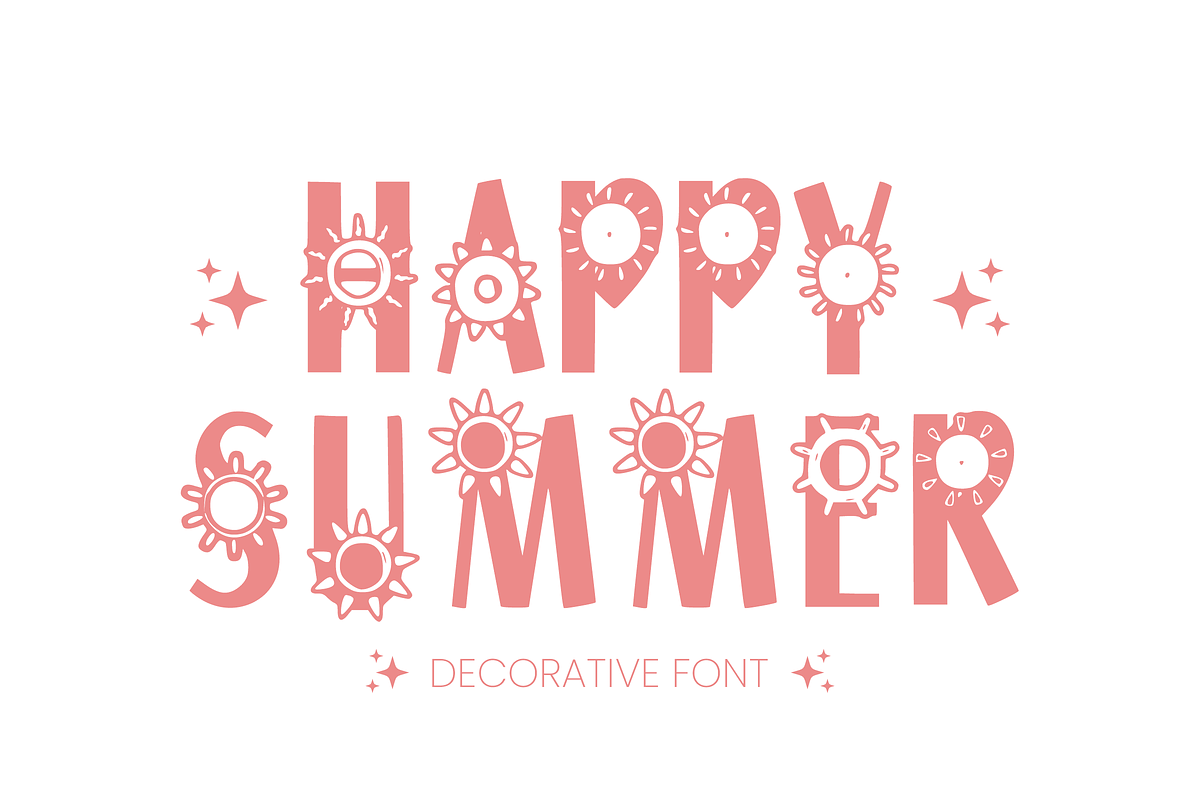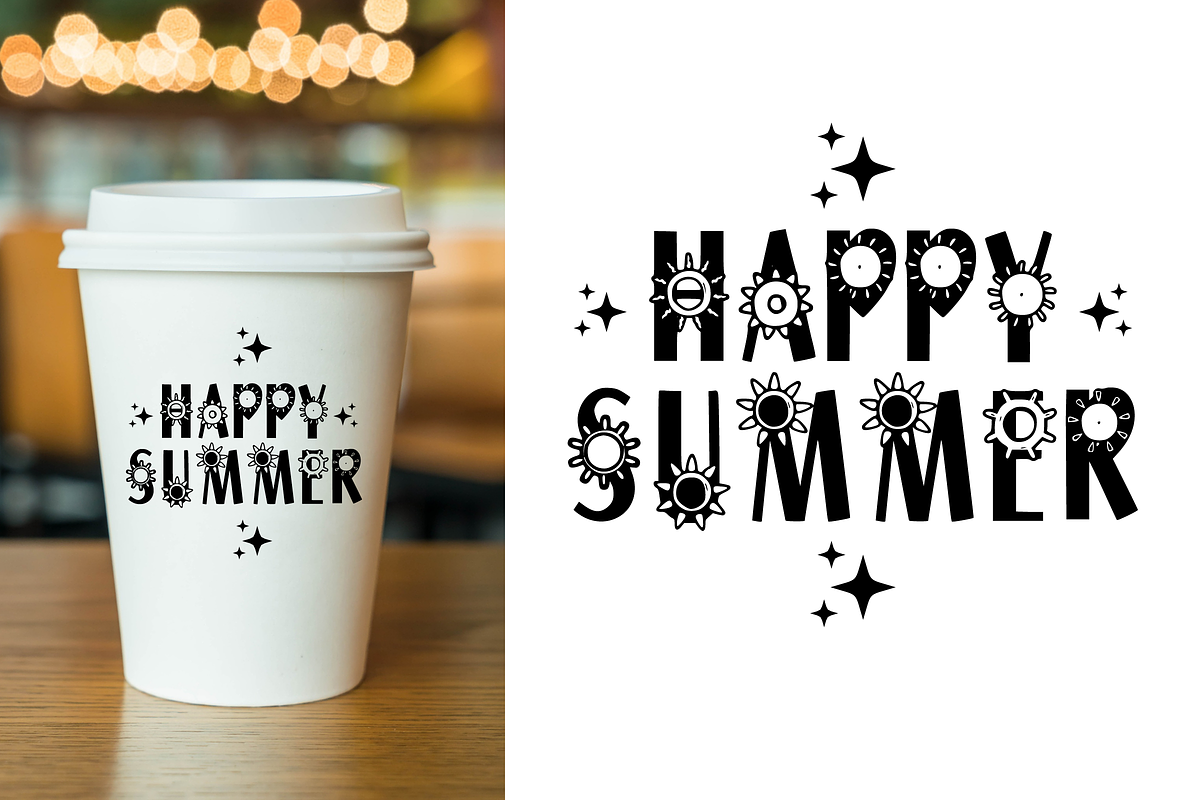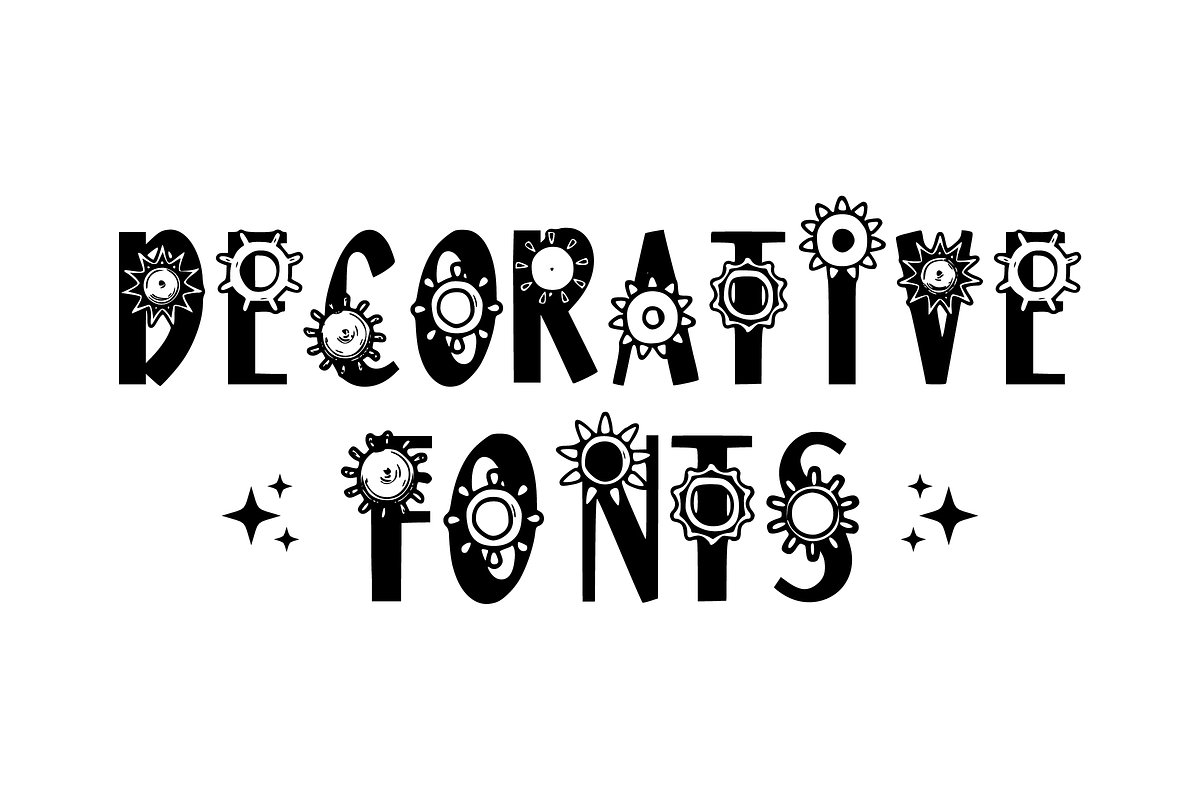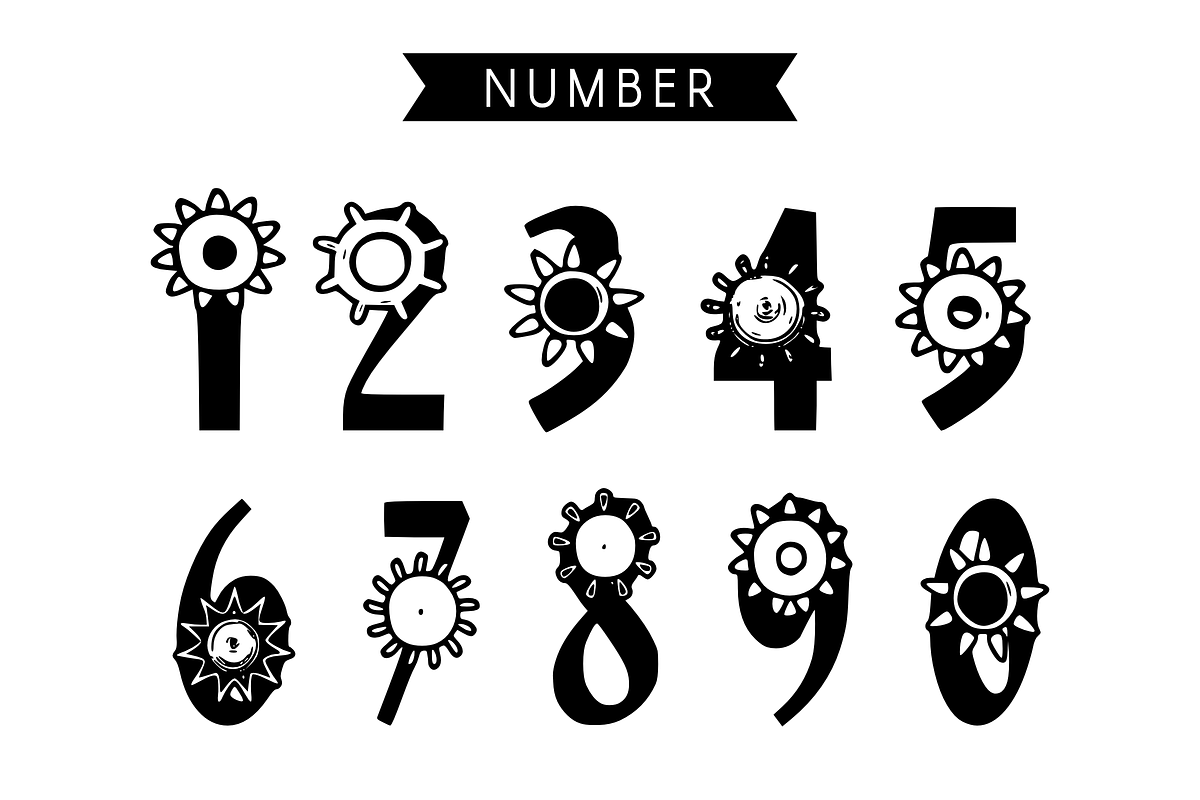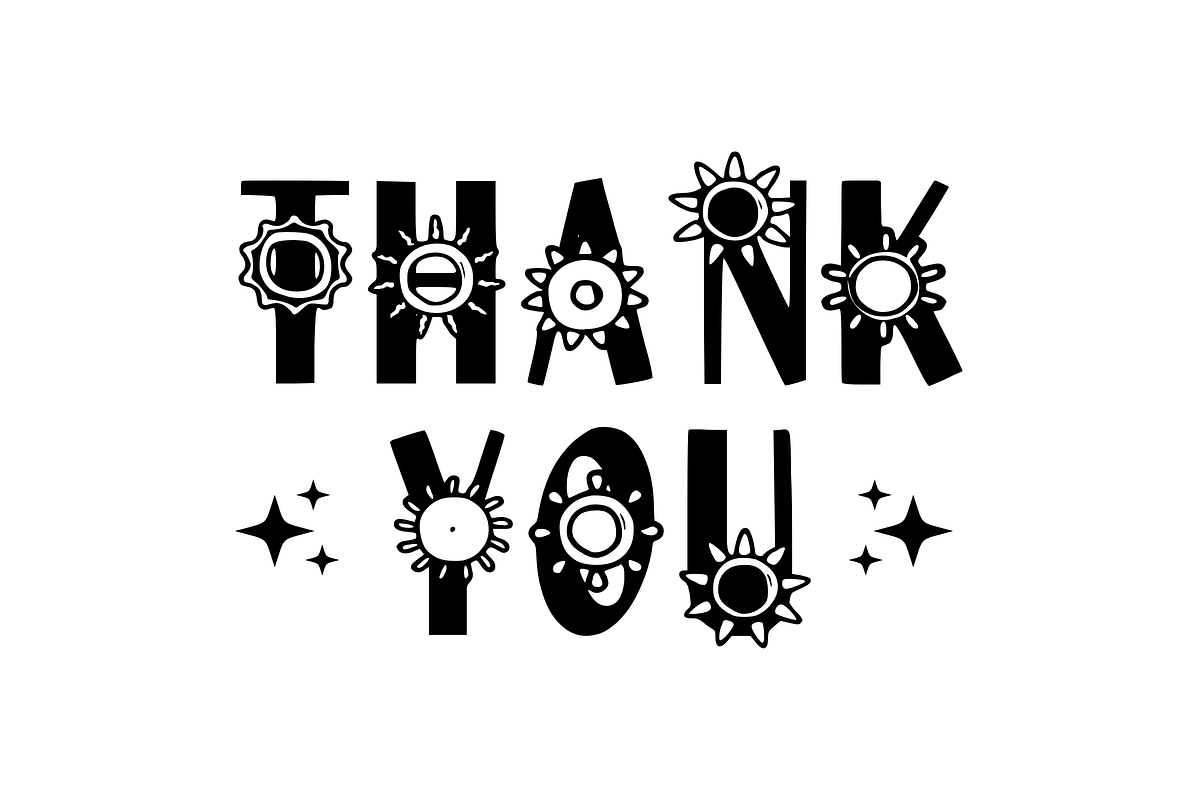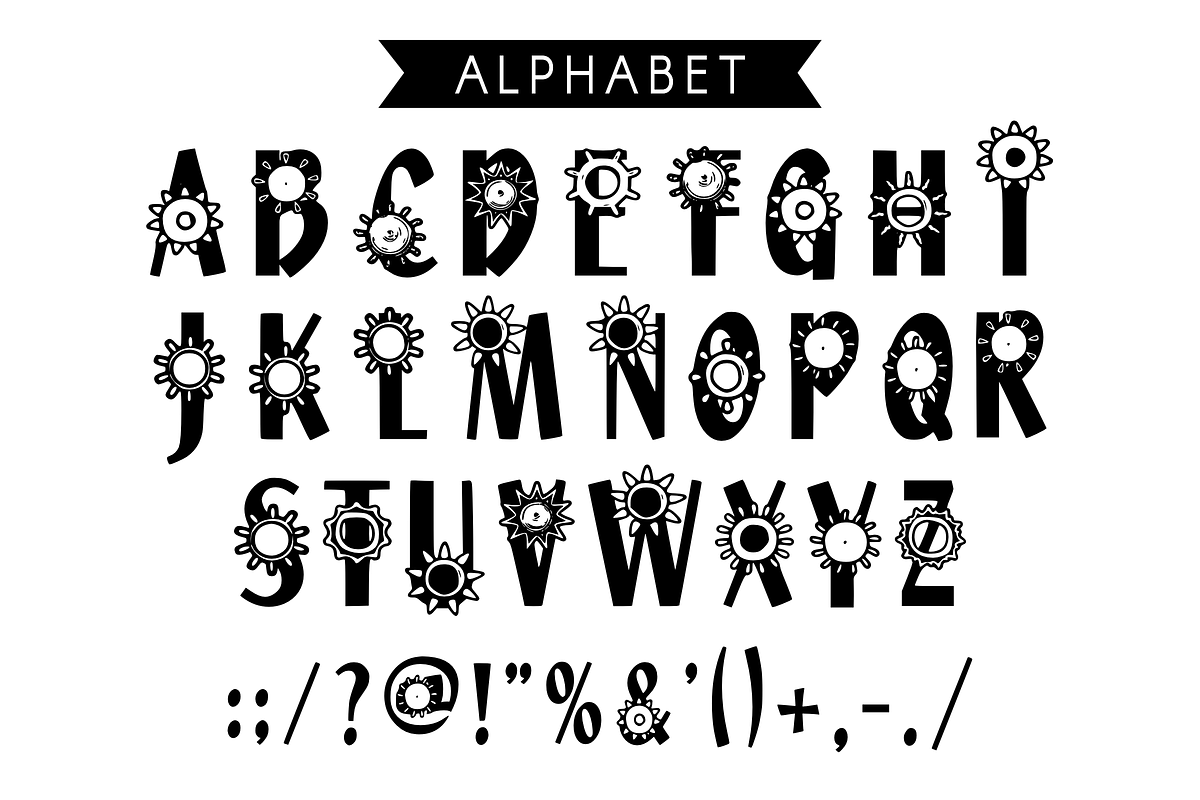
Happy Summer - Summer Font Types
Unveiling “Happy Summer,” a lively seasonal font to bring a ray of sunshine to your projects. Each character of this font is playfully adorned with a whimsical sun icon, infusing charm and vitality. From handcrafted greeting cards, personalized sublimation mugs to trendy t-shirts and vivacious party invitations for children, “Happy Summer” font is your go-to tool to fill every creation with the joy and warmth of the season.-